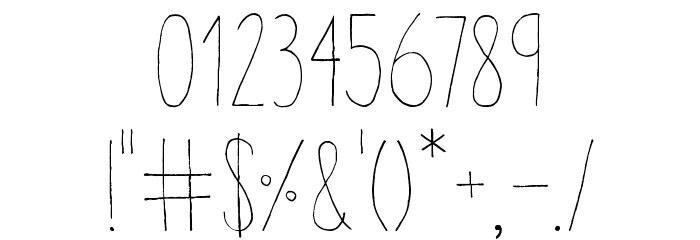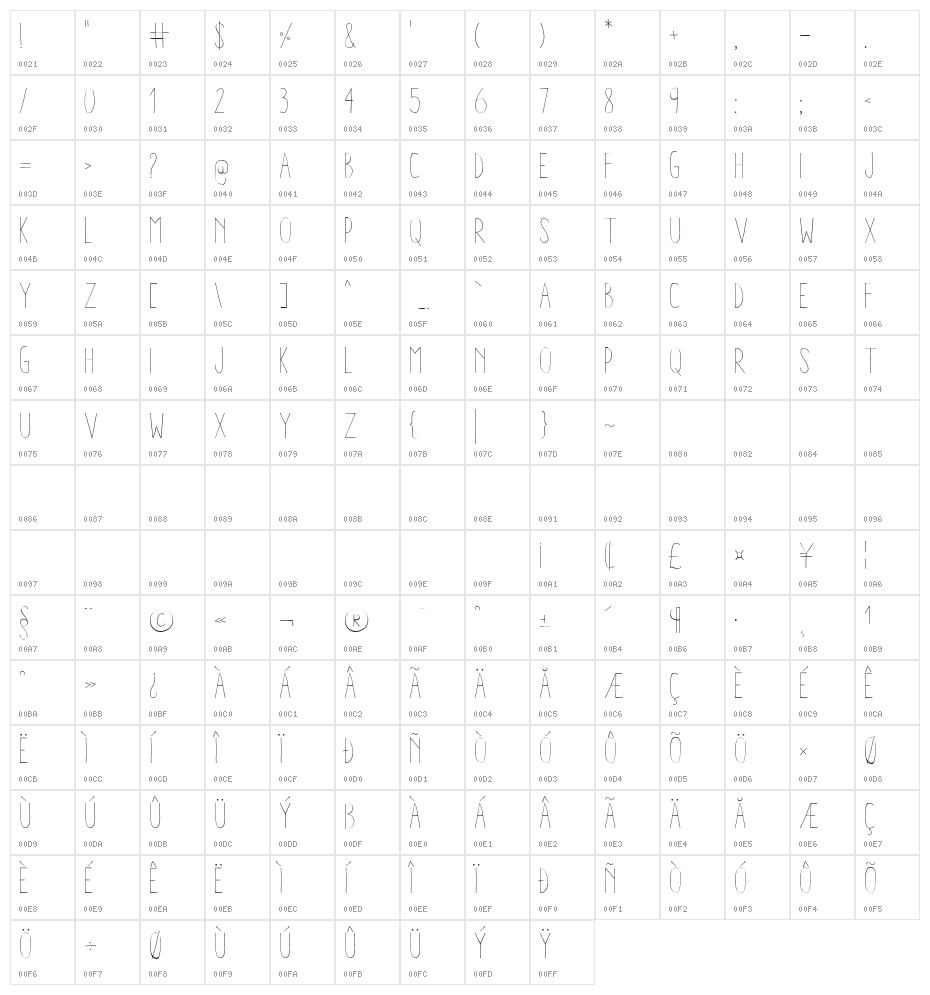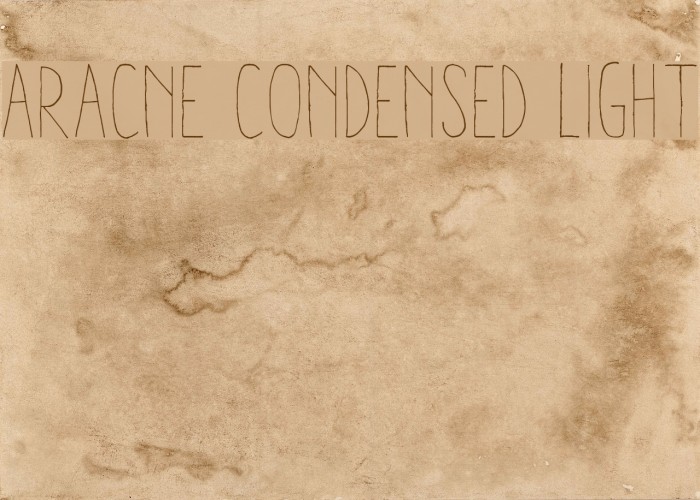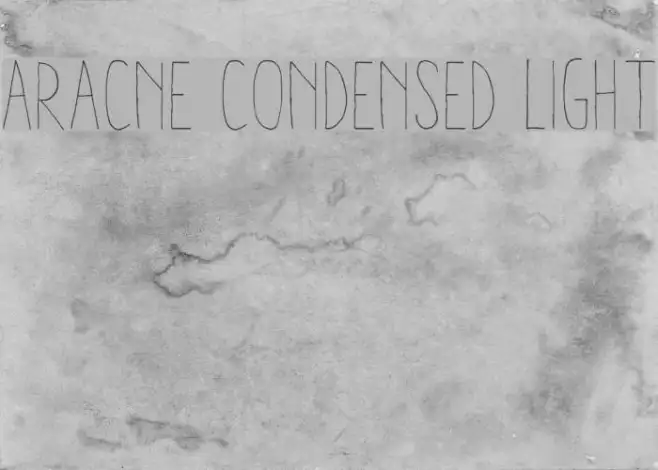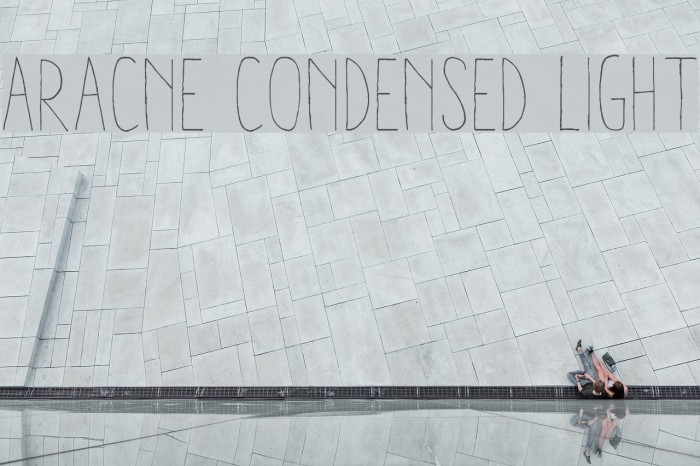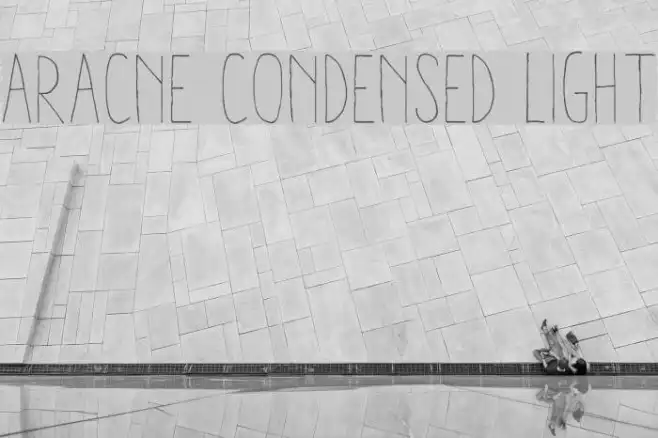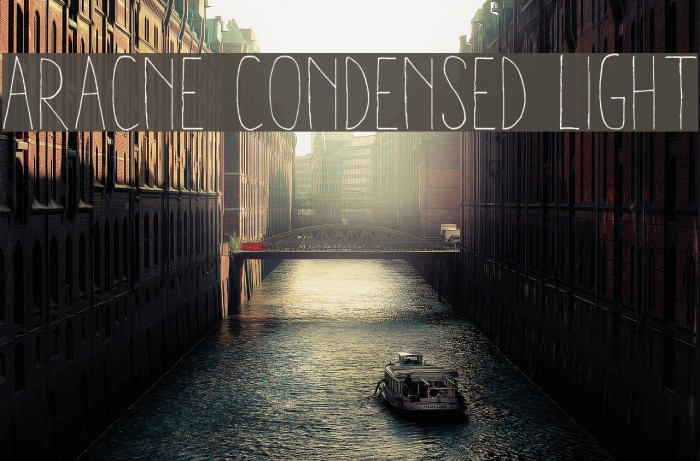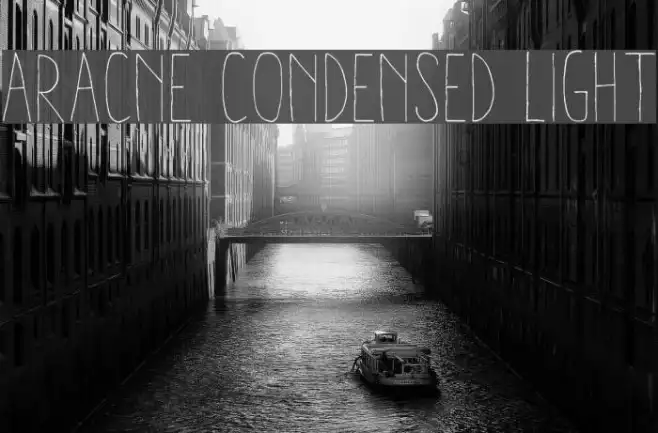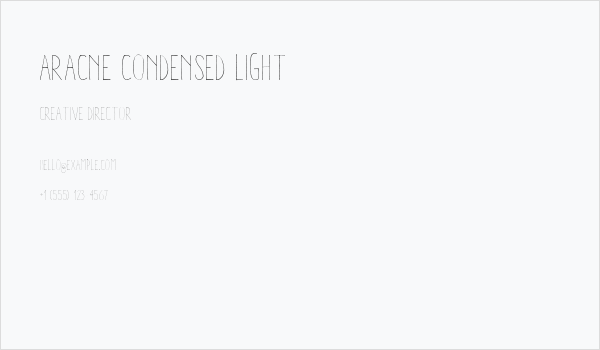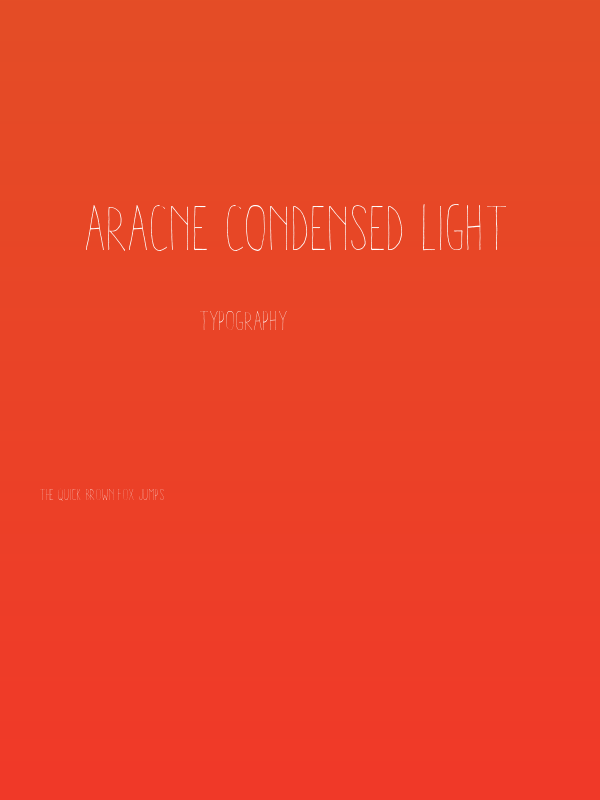
Aracne Condensed Light Font
This font features a delicate and slender design, characterized by its condensed and light structure. The letters are tall and narrow, giving it an elegant and airy appearance. The strokes are thin and consistent, creating a sense of lightness and sophistication. The font maintains a clean and minimalistic aesthetic, making it suitable for modern and stylish applications. The numerals and special characters follow the same slender and refined style, ensuring uniformity across all text elements.
| Proposed Projects | Ideal for fashion magazines, minimalist branding, elegant invitations, and modern web design. |